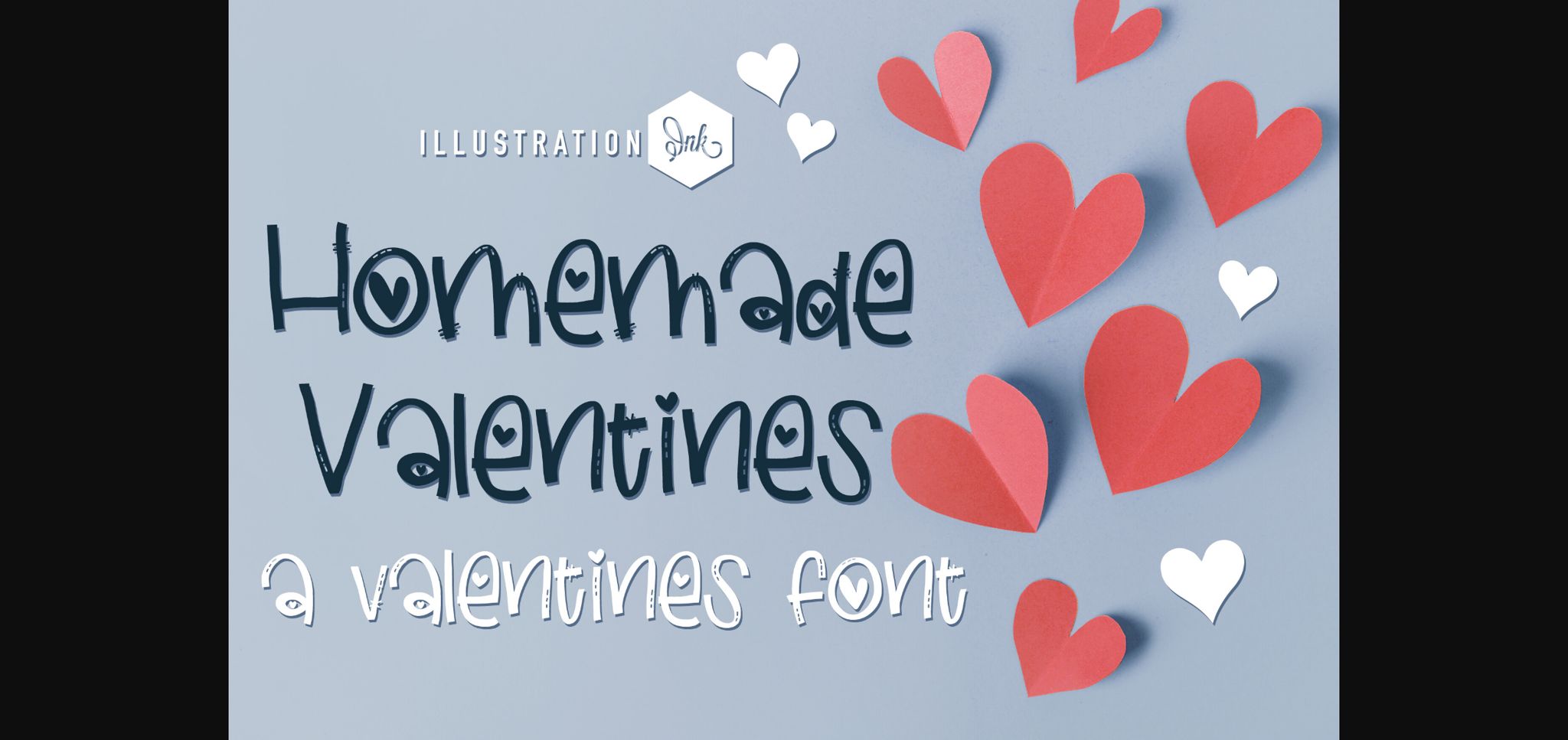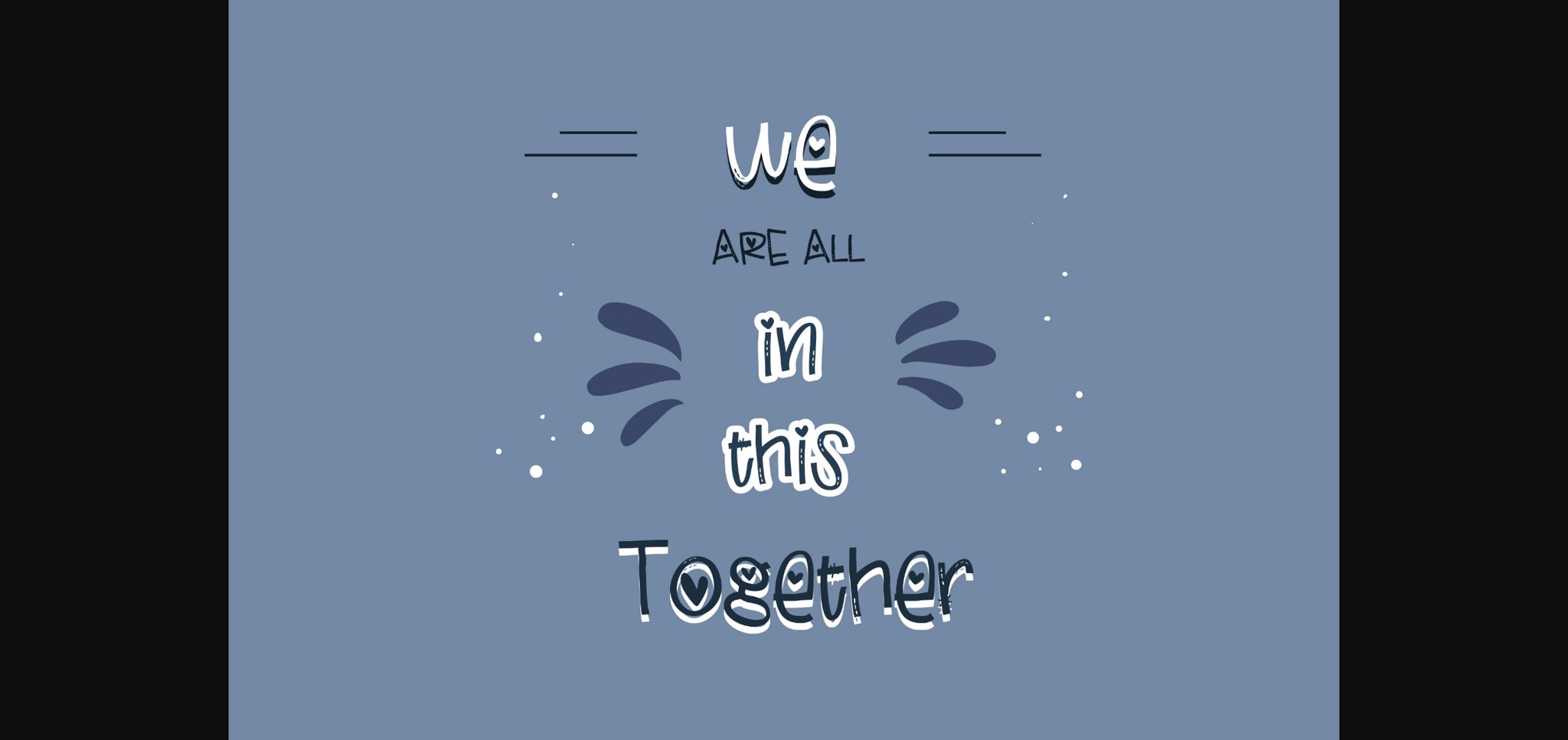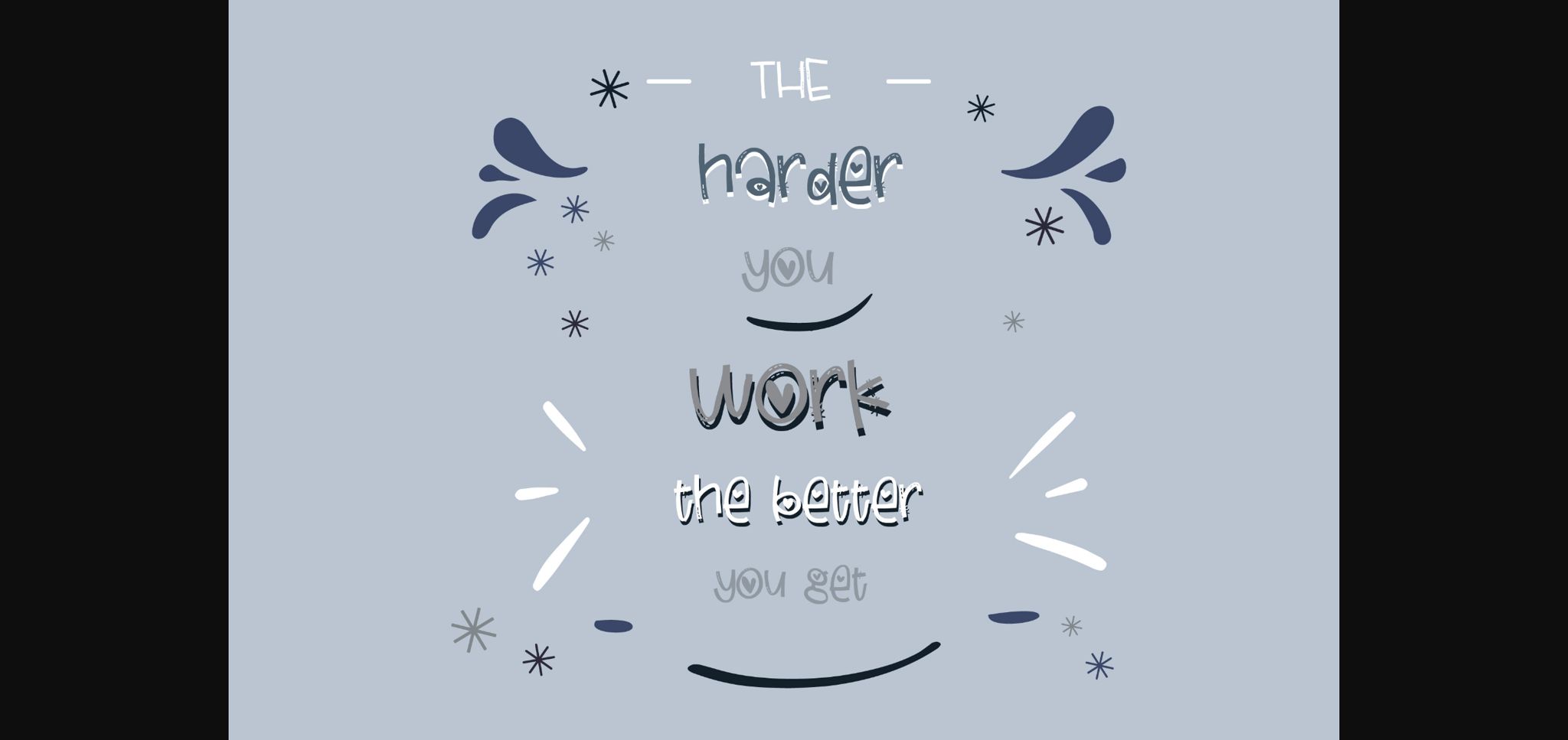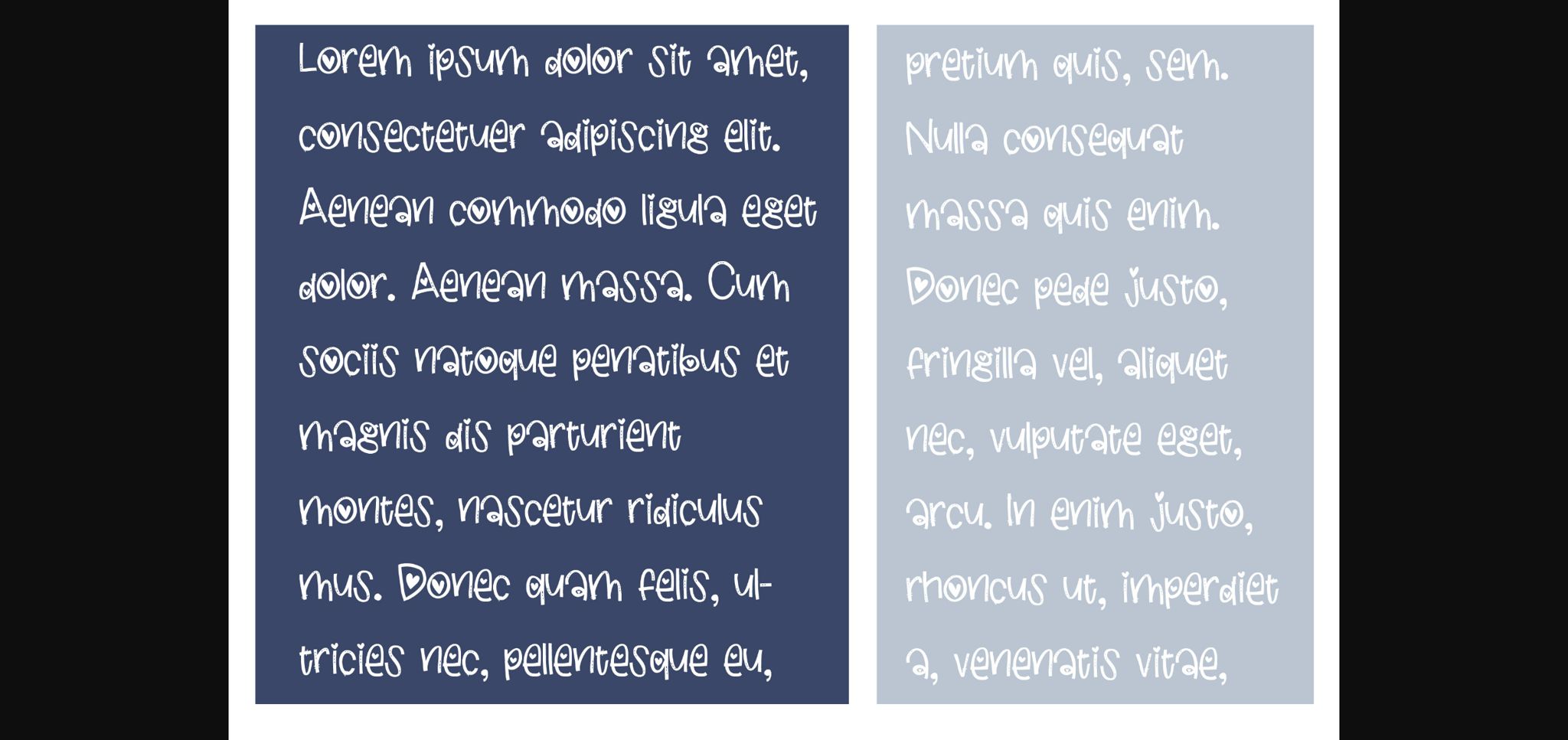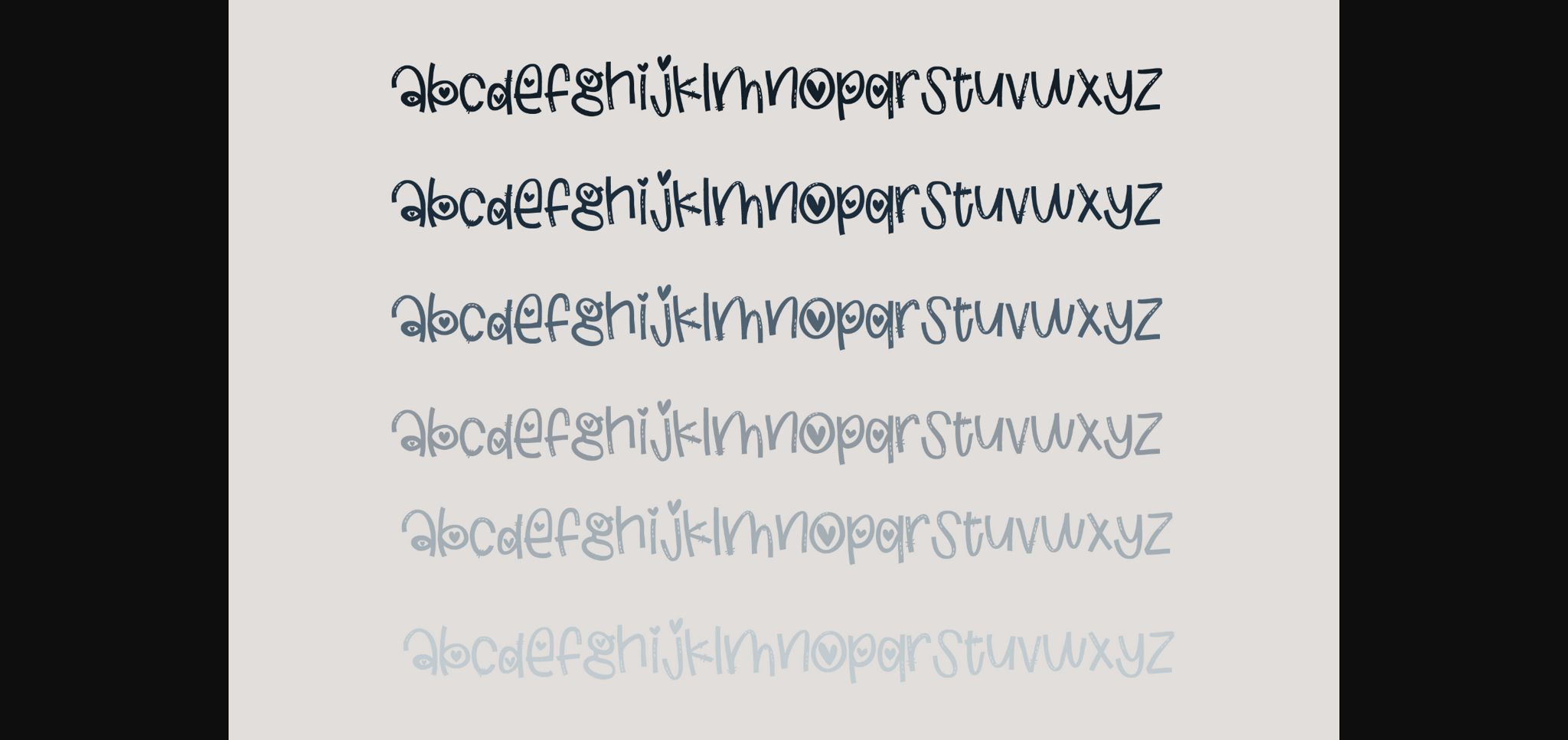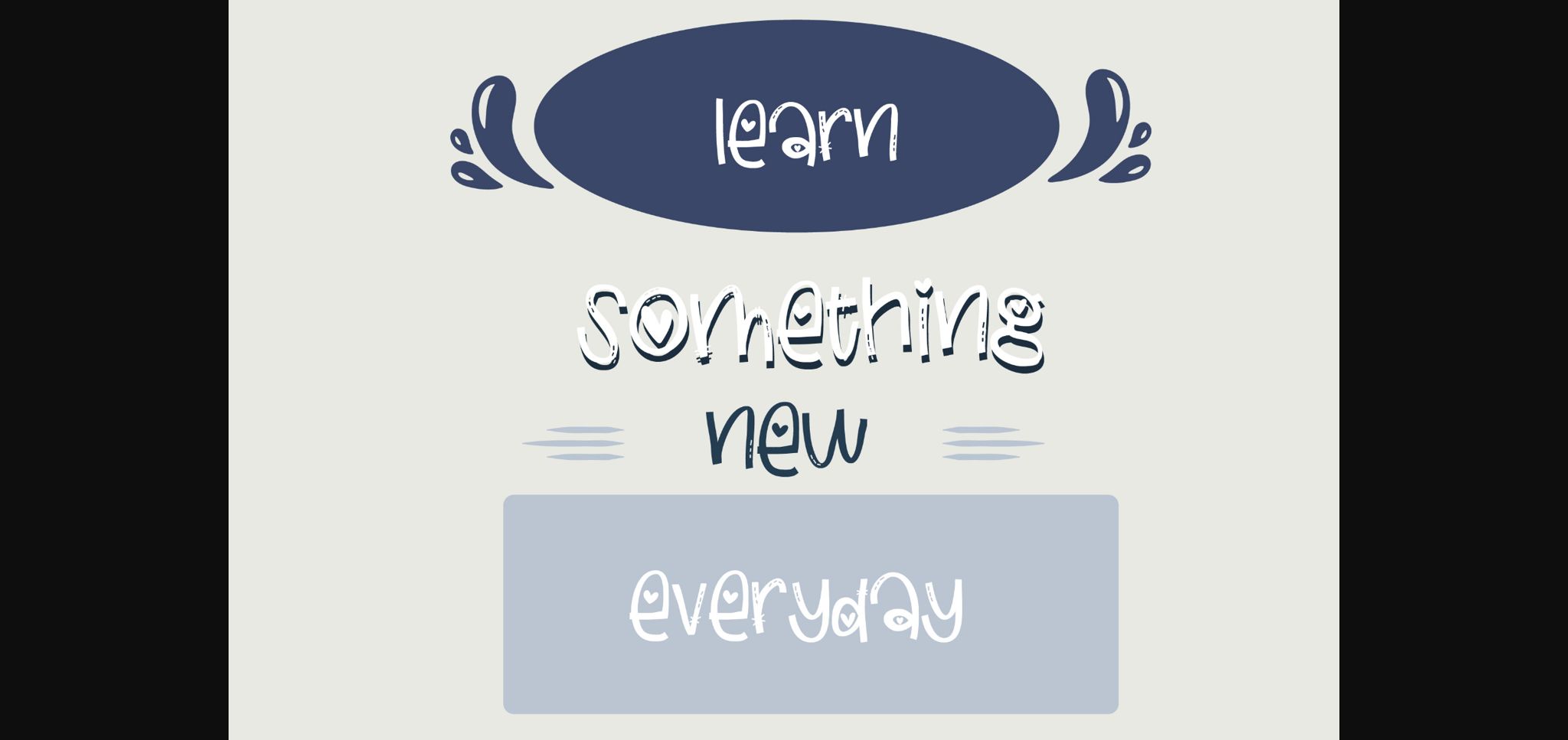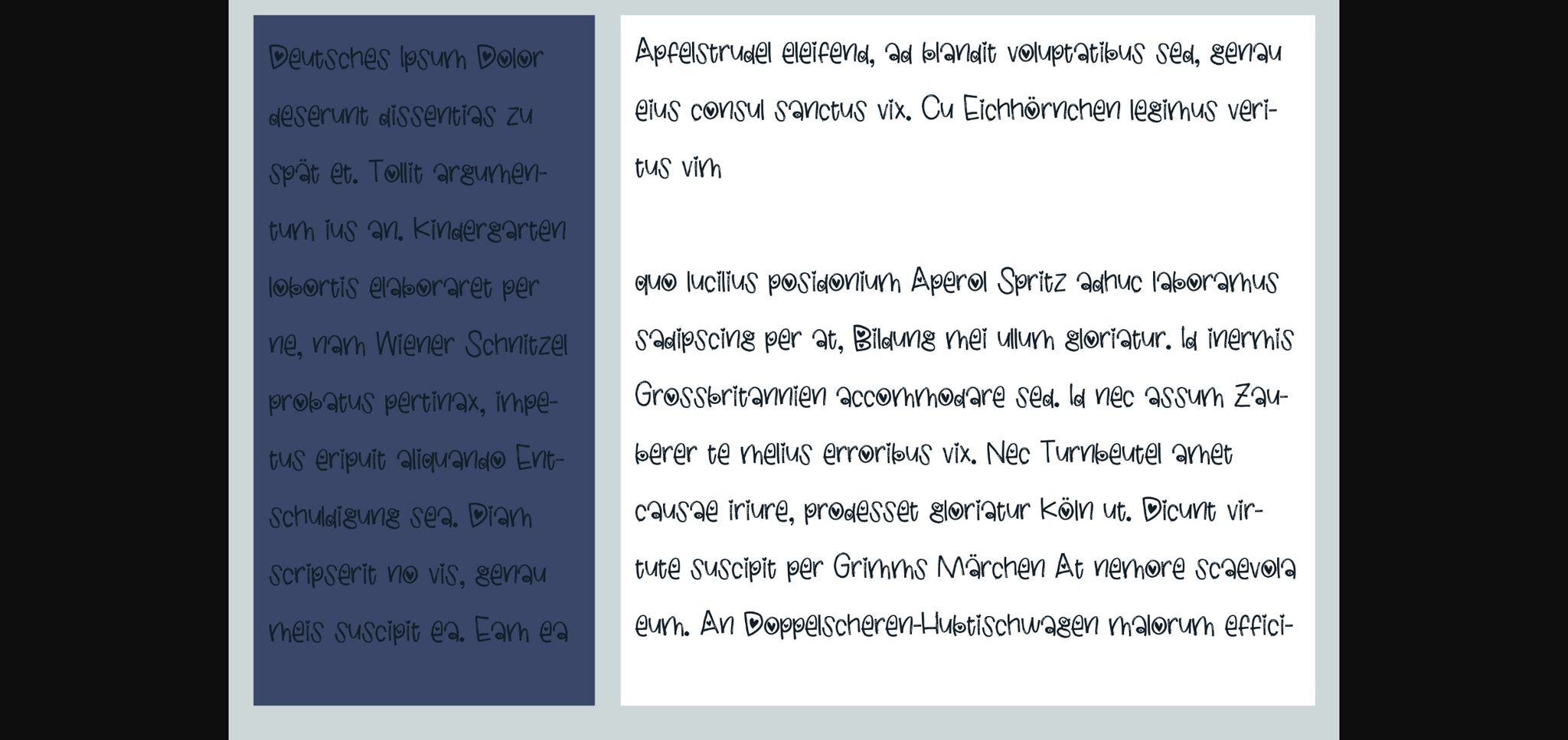
HomeSans Serif FontsHomemade Valentine Font Sans Serif Fonts Homemade Valentine Font FacebookXPinterestWhatsApp 1 of 9 ... Homemade Valentine Font Poster 2... Homemade Valentine Font Poster 3... Homemade Valentine Font Poster 4... Homemade Valentine Font Poster 5... Homemade Valentine Font Poster 6... Homemade Valentine Font Poster 7... Homemade Valentine Font Poster 8... Homemade Valentine Font Poster 9... About Homemade Valentine Font This hand-crafted sans serif font features hearts and stitches. No matter the topic, this font will be an incredible asset to your fonts’ library, as it has the potential to elevate any creation. DOWNLOAD NOW People also explored Village Font California Font Hillbilly Font Marqurius Font Claristta Font Brave Strong Font Autumn Signature Font Kahistto Font Robert Buso Font 377 0 TagsHomemade Valentine Font Previous articleDiva Devoted FontNext articleTheodores Font LEAVE A REPLY Cancel reply Comment: Please enter your comment! Name:* Please enter your name here Email:* You have entered an incorrect email address! Please enter your email address here Website: Save my name, email, and website in this browser for the next time I comment. Personal Use Free Bettari Personal Use Free Read more about this font White Rose Personal Use Free Read more about this font Leadent Script Personal Use Free Read more about this font Krase Personal Use Free Read more about this font BLOG How to Cut Any Font on Cricut: Convert a Font to SVG (Free) Turn any font into a clean SVG so it cuts crisp on Cricut - a quick 3-step workflow using a free font-to-SVG tool. Best Fonts for T-Shirt Design – Top 2025 Picks To increase your work productivity, choose the most readable fonts. 5 Fonts That Will Dominate Design Trends in 2026